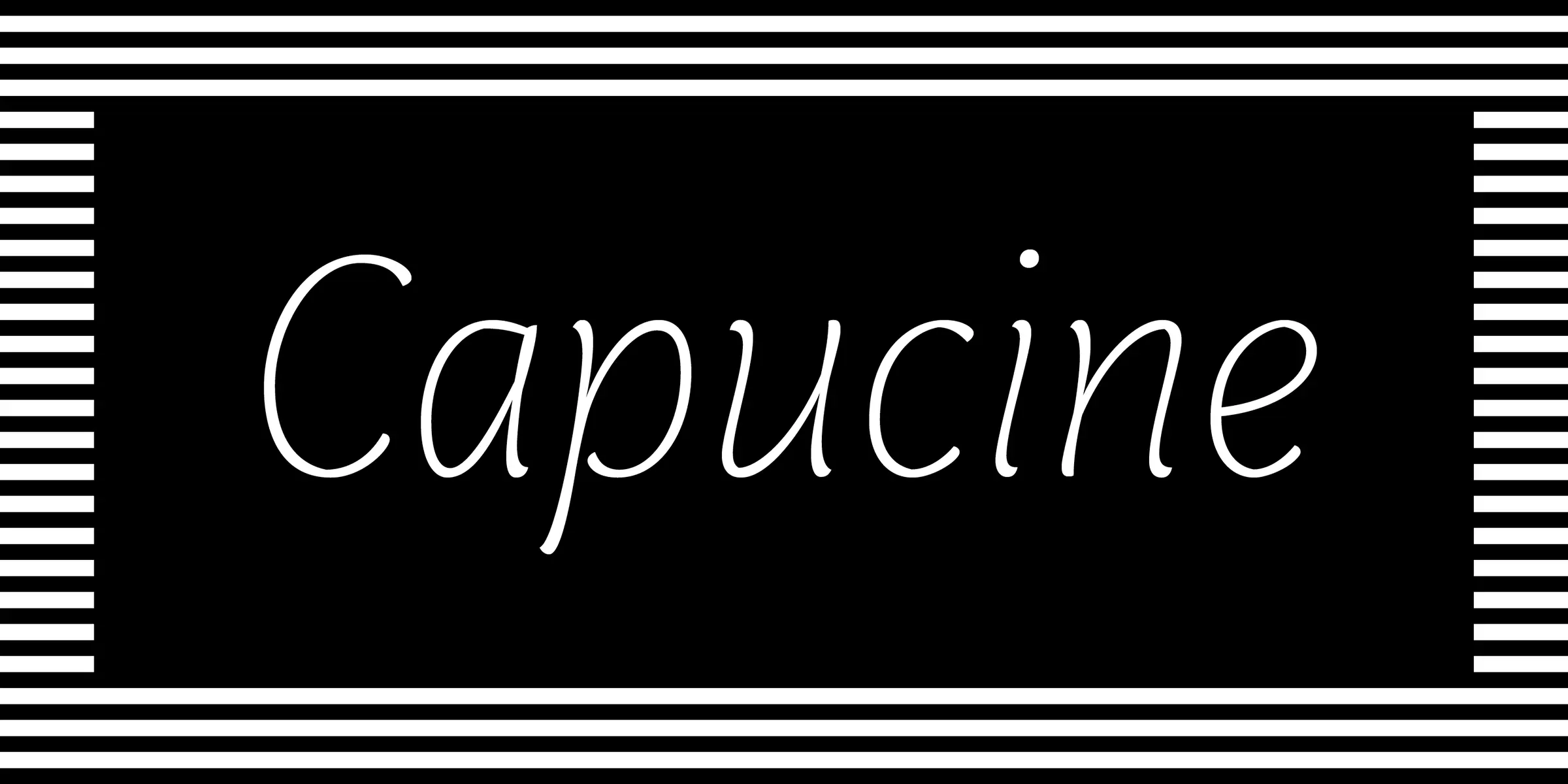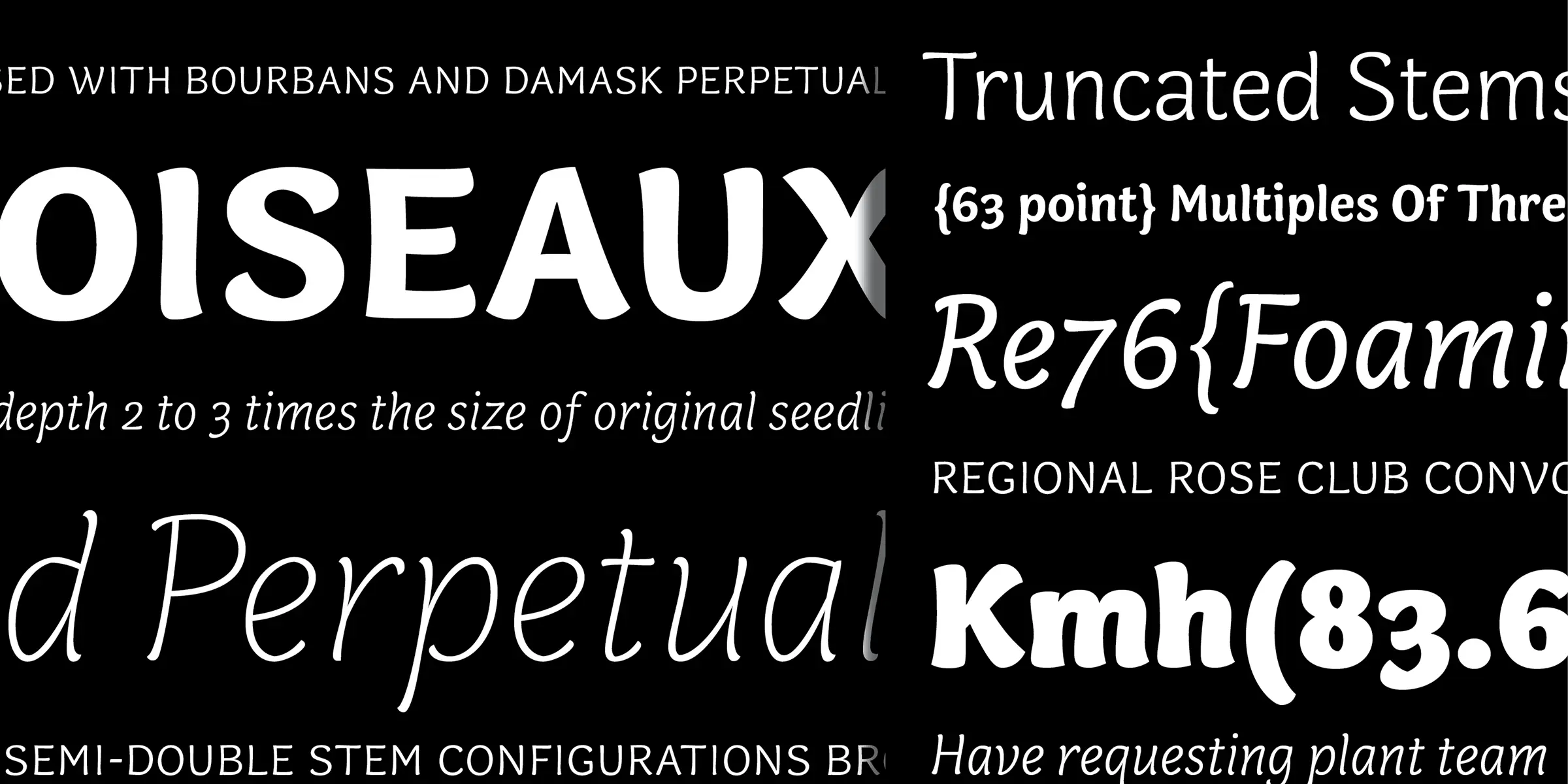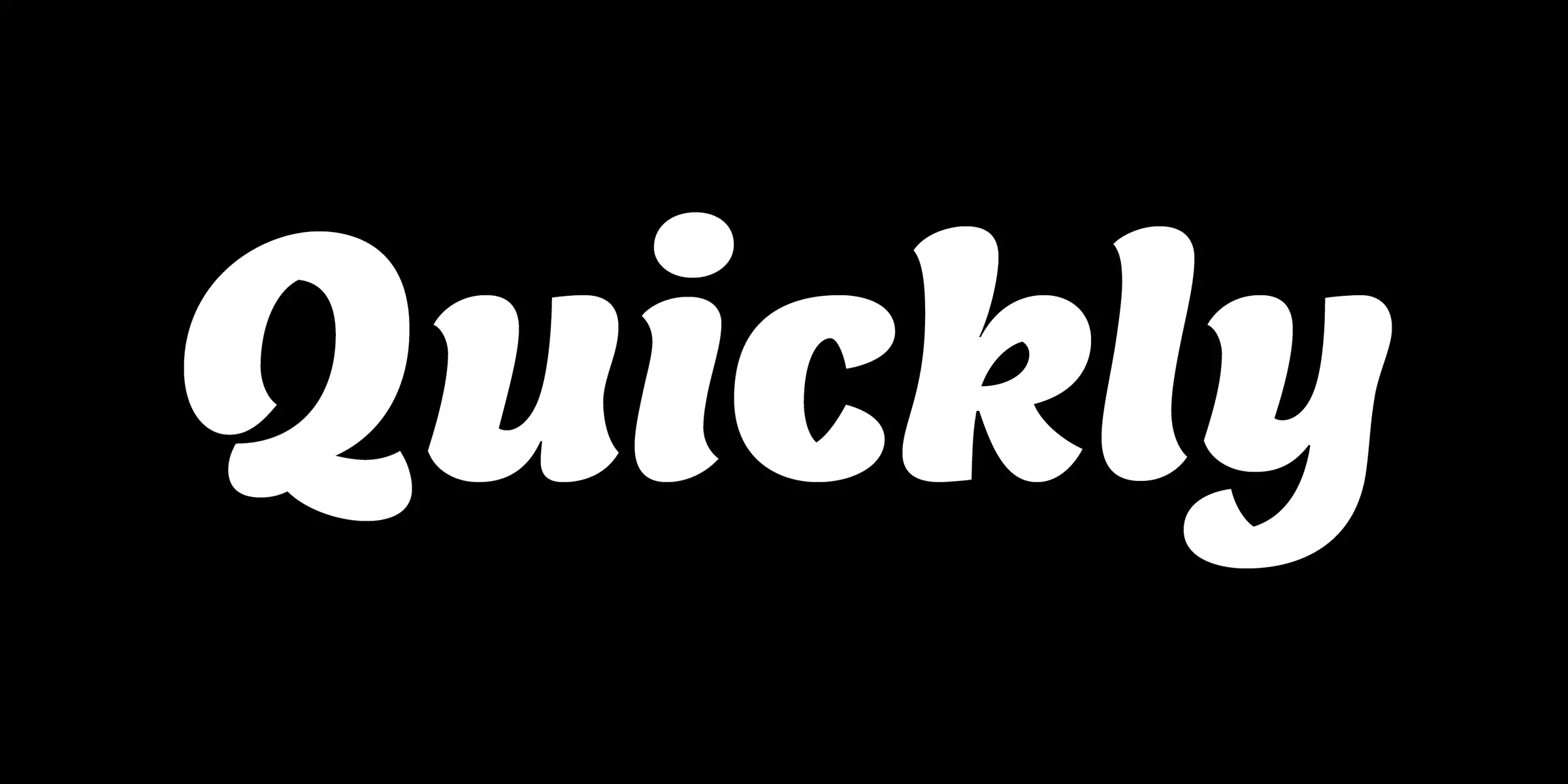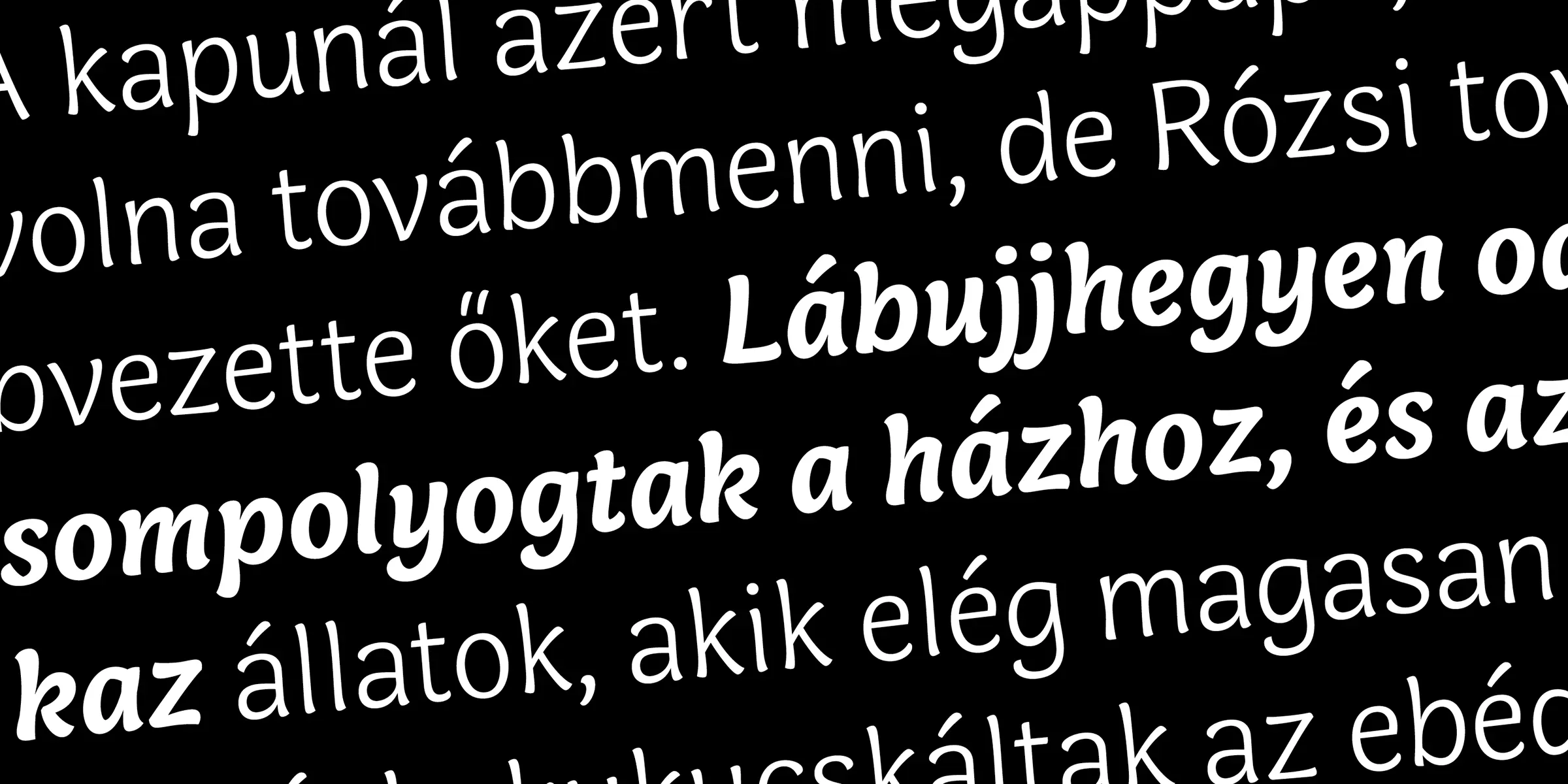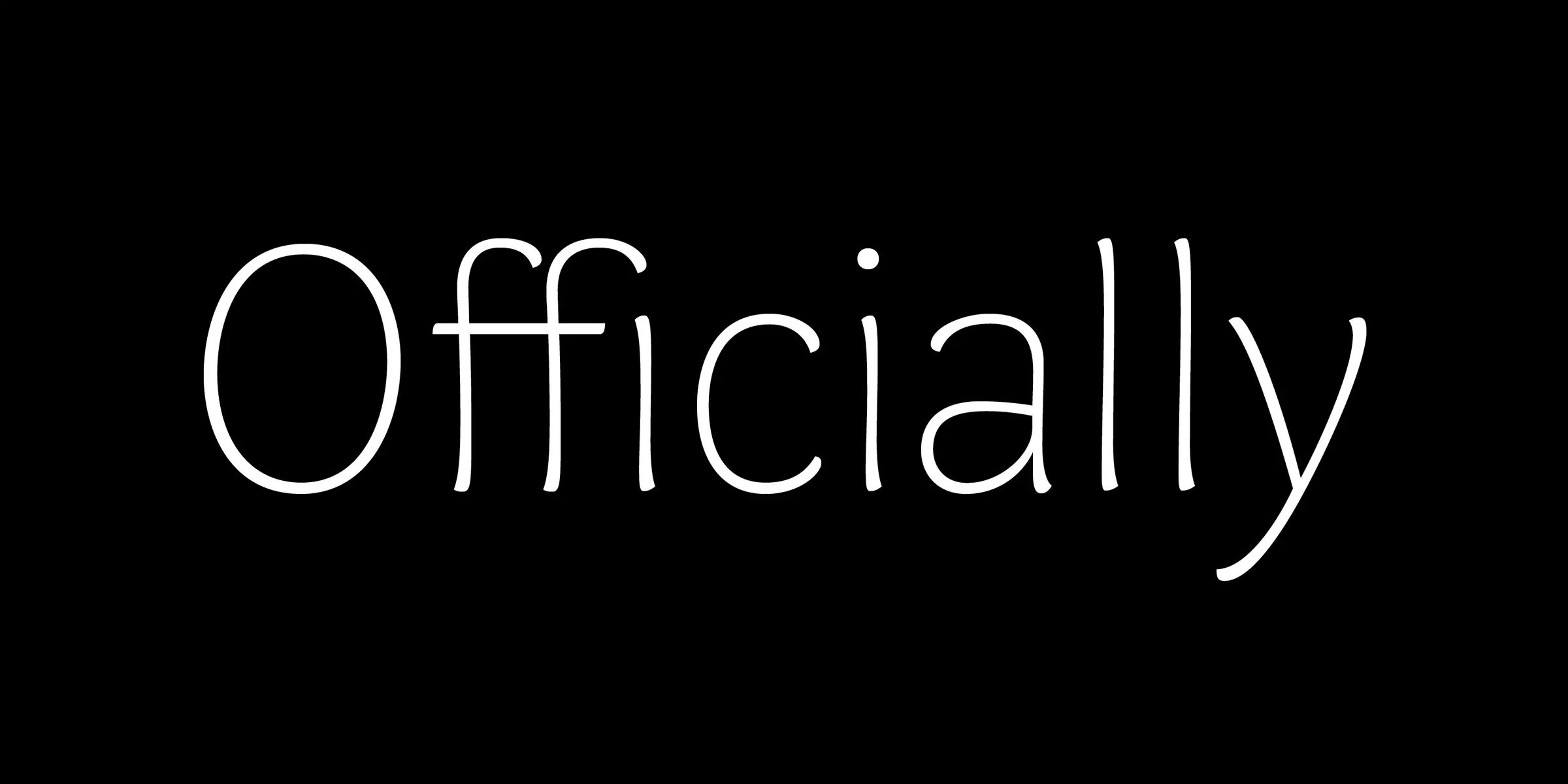
Capucine Details
Capucine is an idiosyncratic sans serif that livens up any page. From magazine listings to expressive headlines, it’s a robust family that mixes the fluidity of handwriting with the vivacity of a brush script. Its italics enhance the personality of this five-weight typeface and are especially distinct at large sizes. OpenType features include smalls caps, case-sensitive glyphs, old style & tabular numerals, and stylistic alternates.